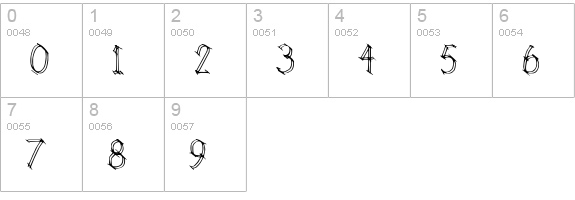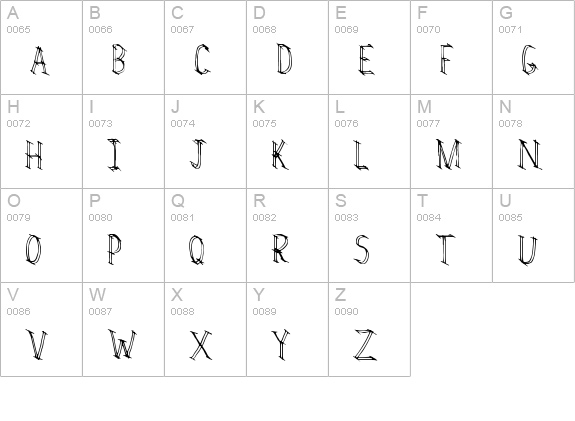
Rivalry Font Details
Rivalry font is a bold and dynamic typeface that exudes a strong sense of competition and energy. With its sharp edges and striking aesthetics, Rivalry font is perfect for making a statement and standing out from the crowd. Whether you're designing a sports logo, a marketing campaign, or a poster for an event, Rivalry font will command attention and leave a lasting impression. Best of all, Rivalry font is available for free download at FontsMarket.com. This means you can add this powerful typeface to your design arsenal without breaking the bank. Don't miss out on the opportunity to elevate your projects with Rivalry font today!